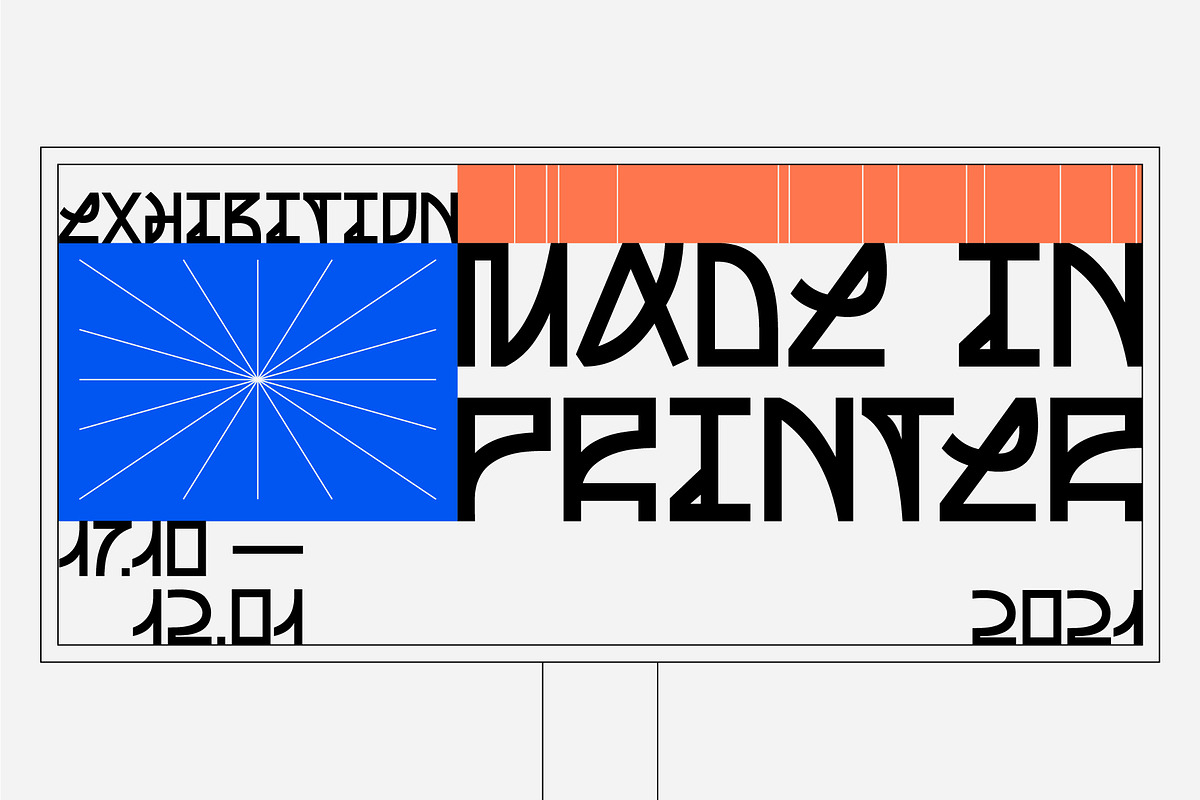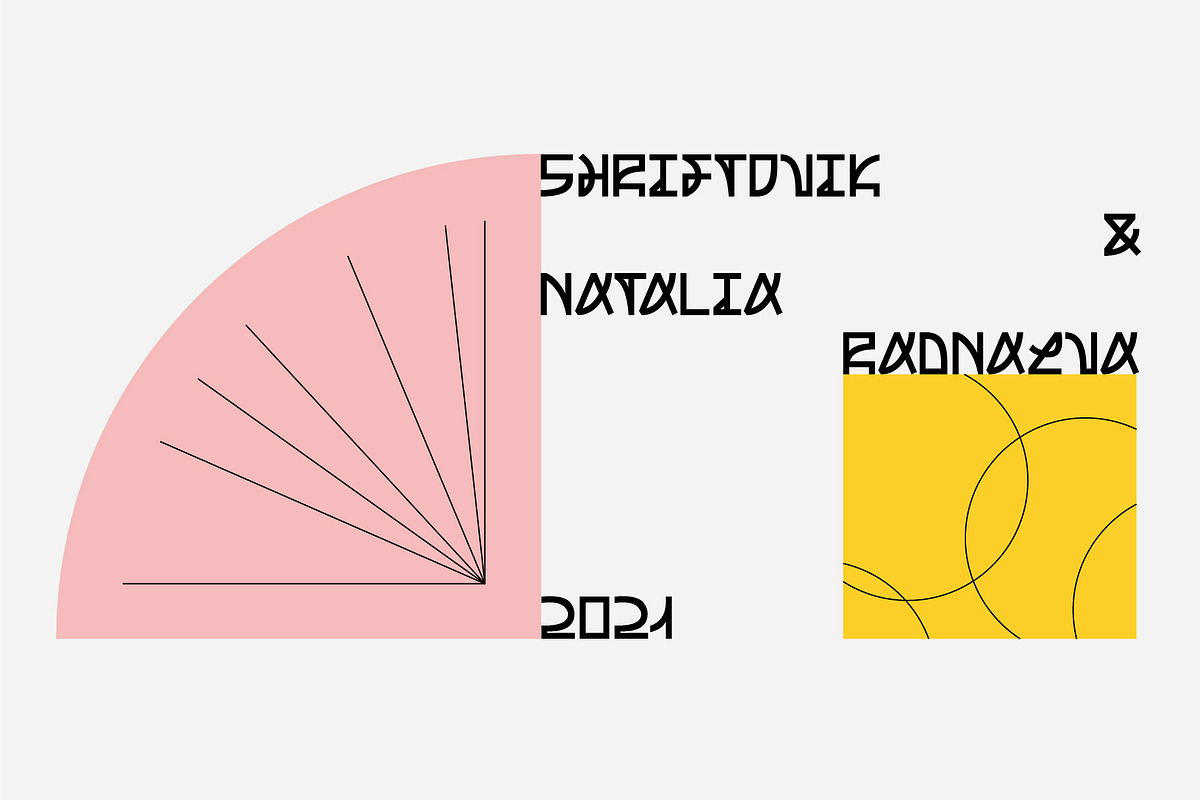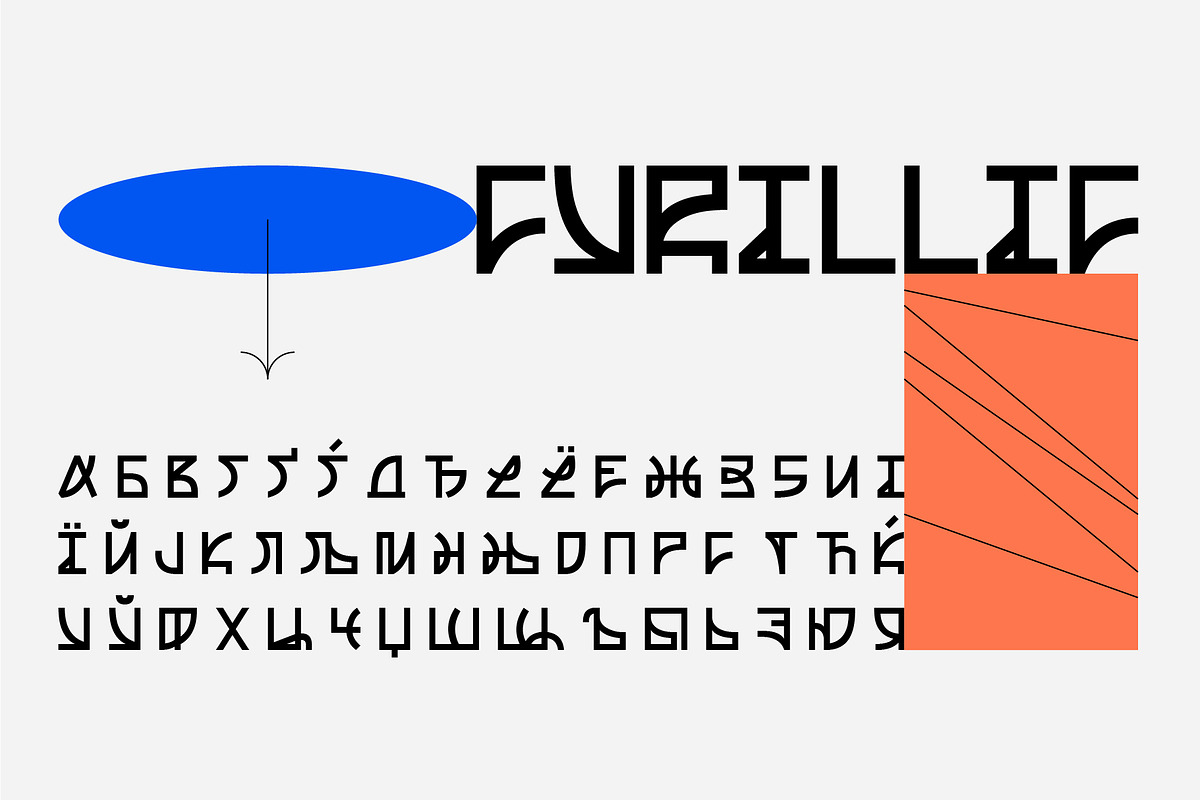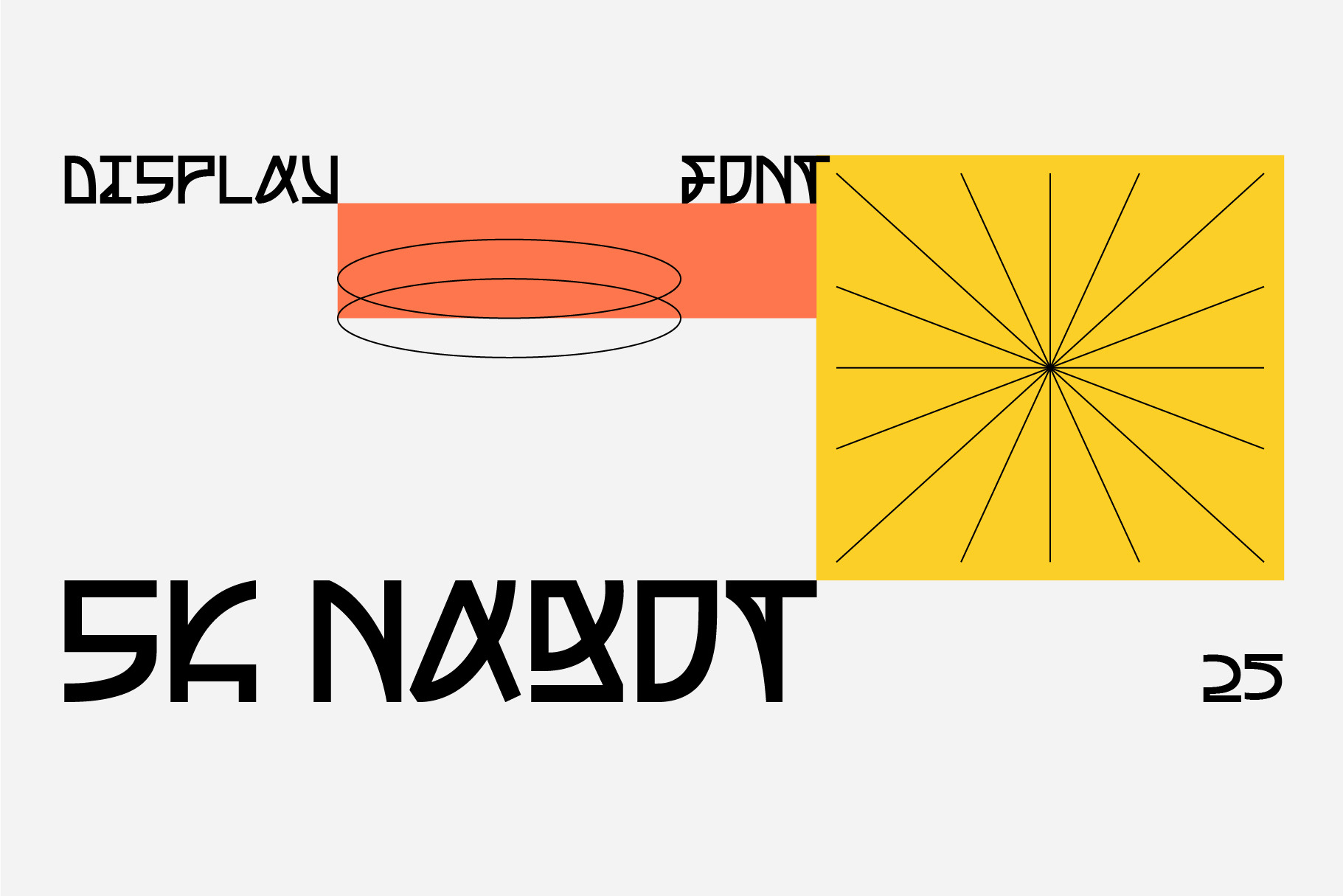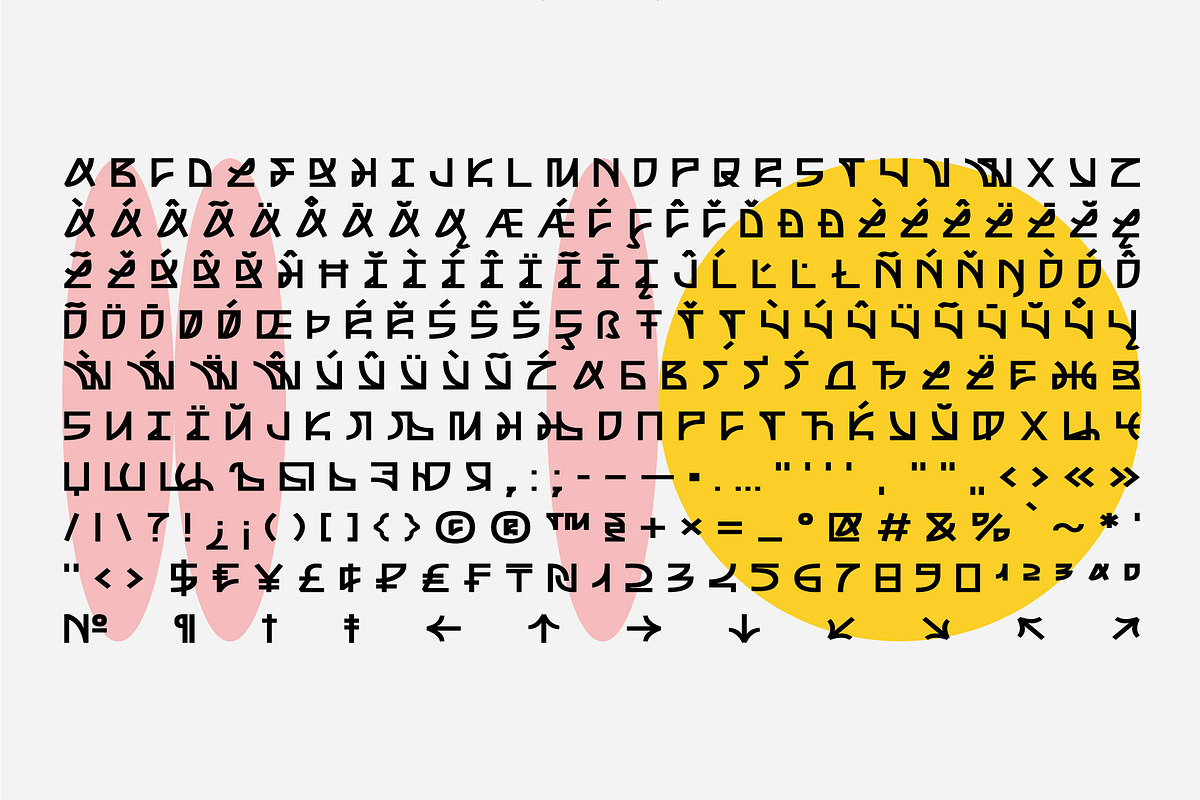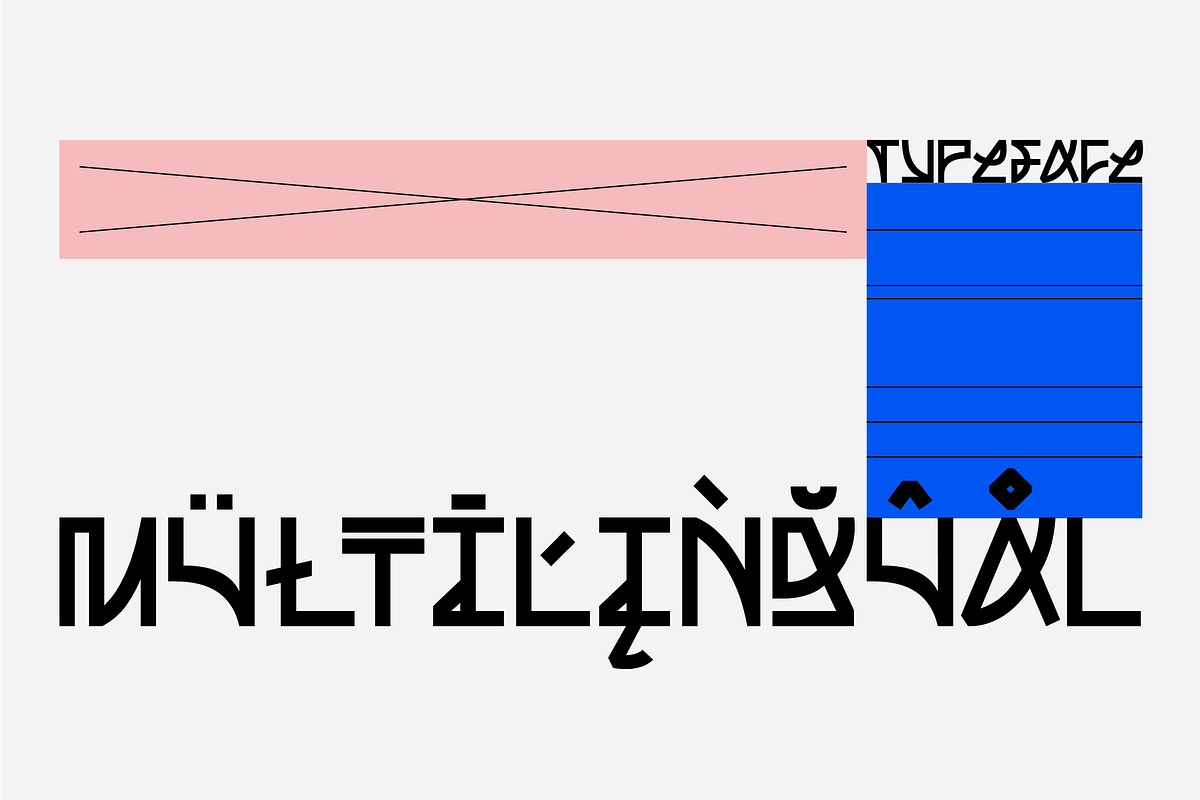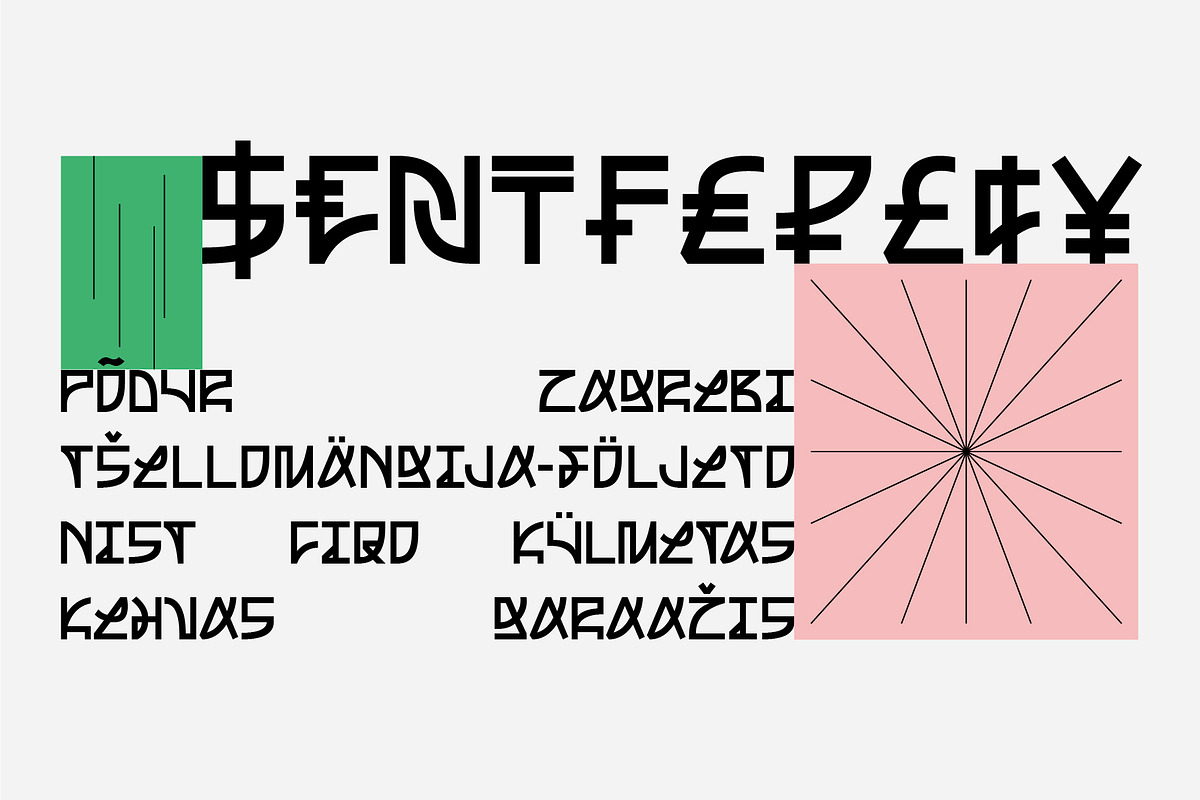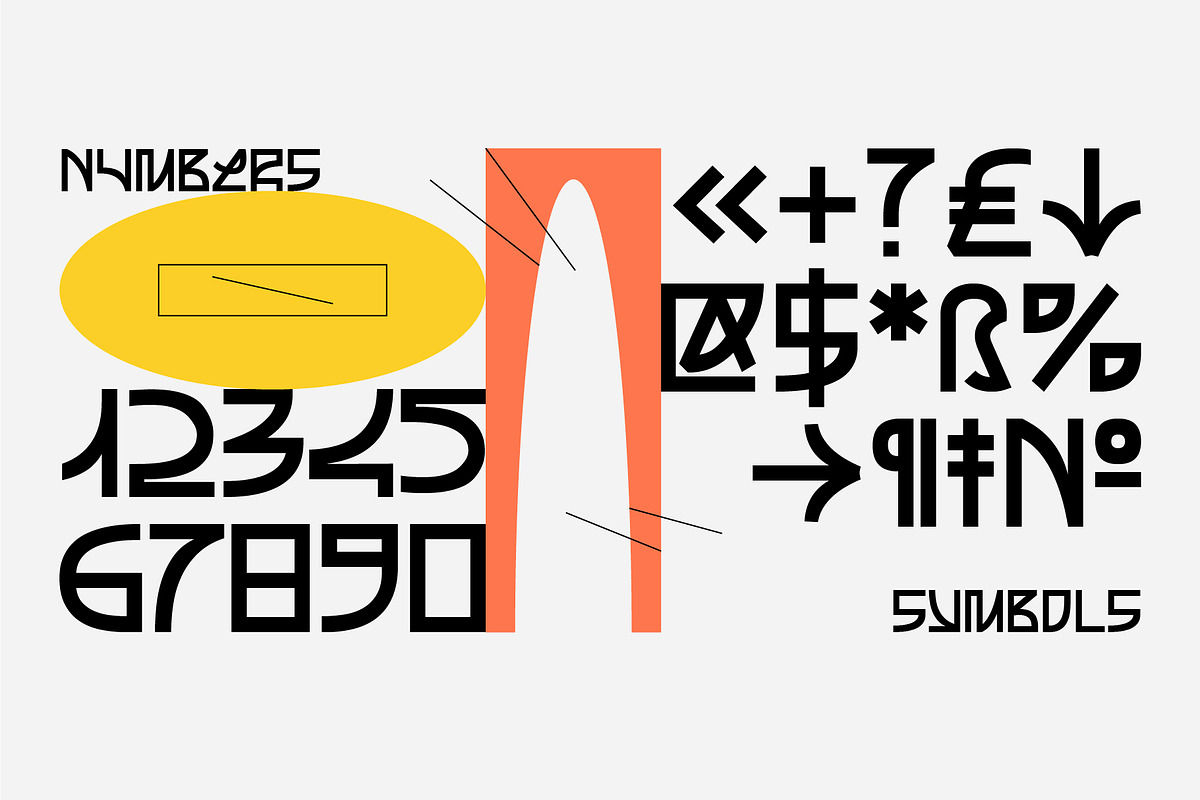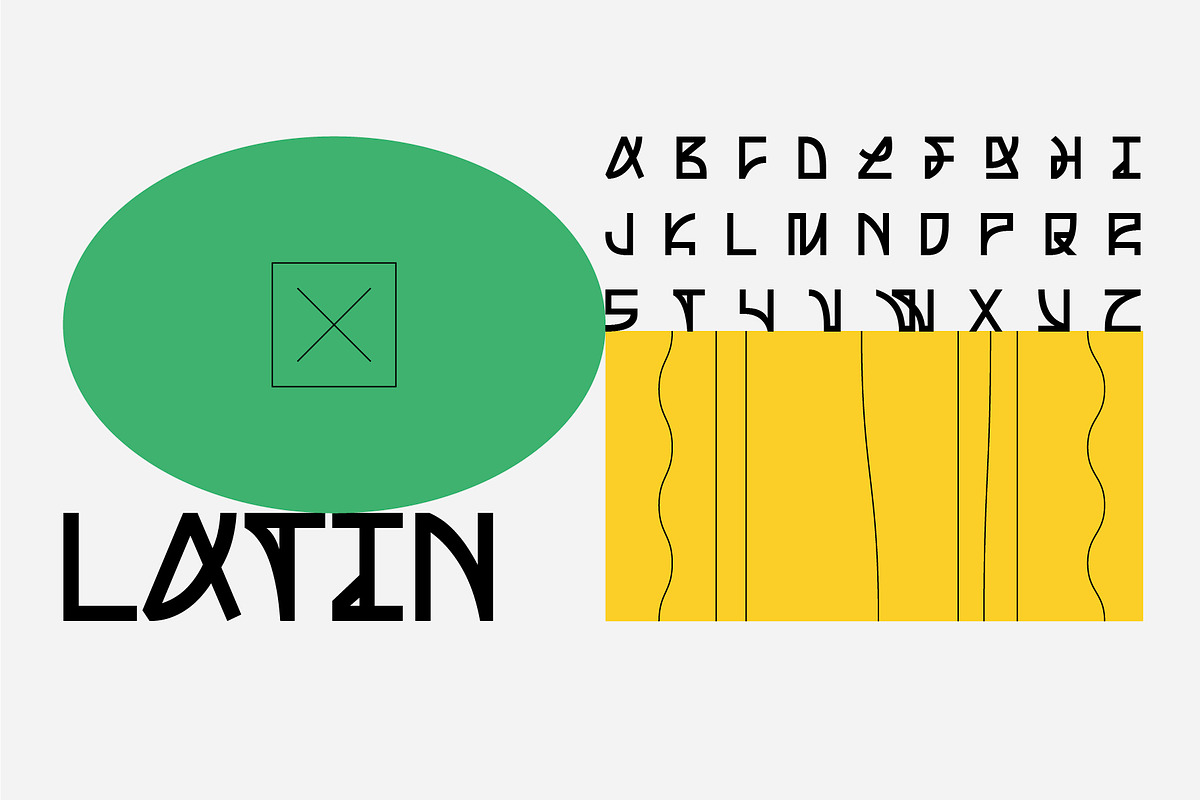
SK Nagot — Modern Decorative Font
SK Nagot is a decorative typeface at the junction of industrial and classical graphic design. It is inspired by 3D printing technology that combines the reality we know with the future. The typeface is built on geometric shapes, which creates a unique appearance of the characters. Despite the apparent complexity of the font, it perfectly emphasizes various design solutions. SK Nagot supports the Latin Pro and Cyrillic Pro alphabet, which, coupled with an extensive character set, gives freedom for creative experiments.